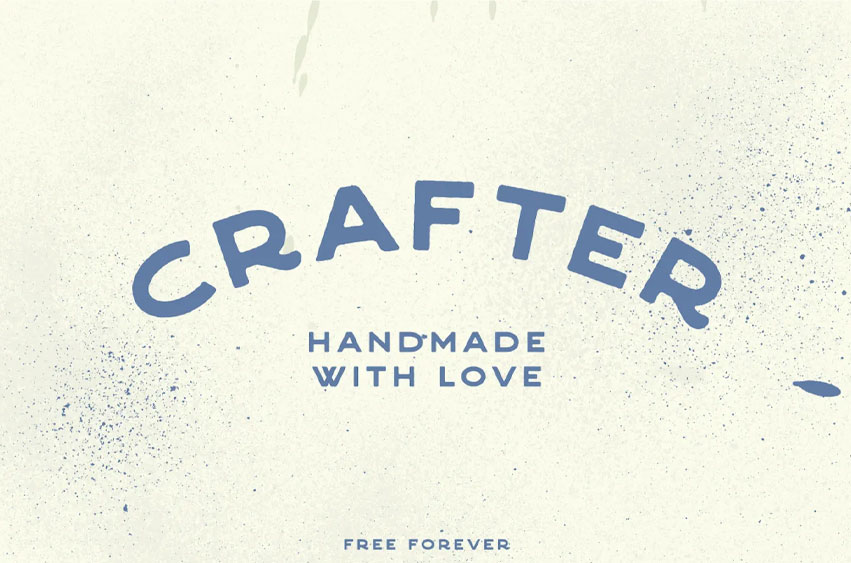
Crafter Vintage Font
Crafter Vintage Font is a sans serif typeface; it is a new novel typeface that is developed by Project! The type of the <>, referring to the metal signs of the past and painters.
This is ideal for posters, logos, t-shirts, social marketing, and anything that requires carving – Crafter has got it All.